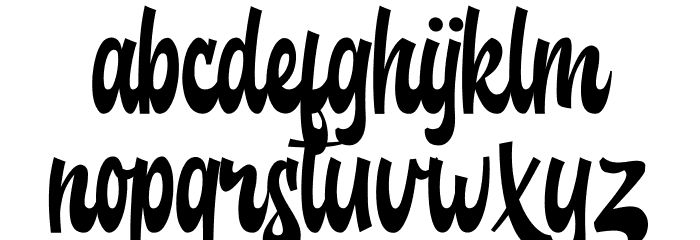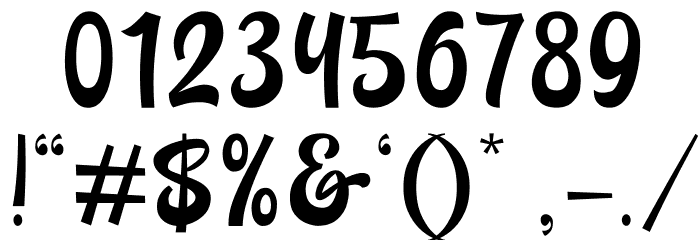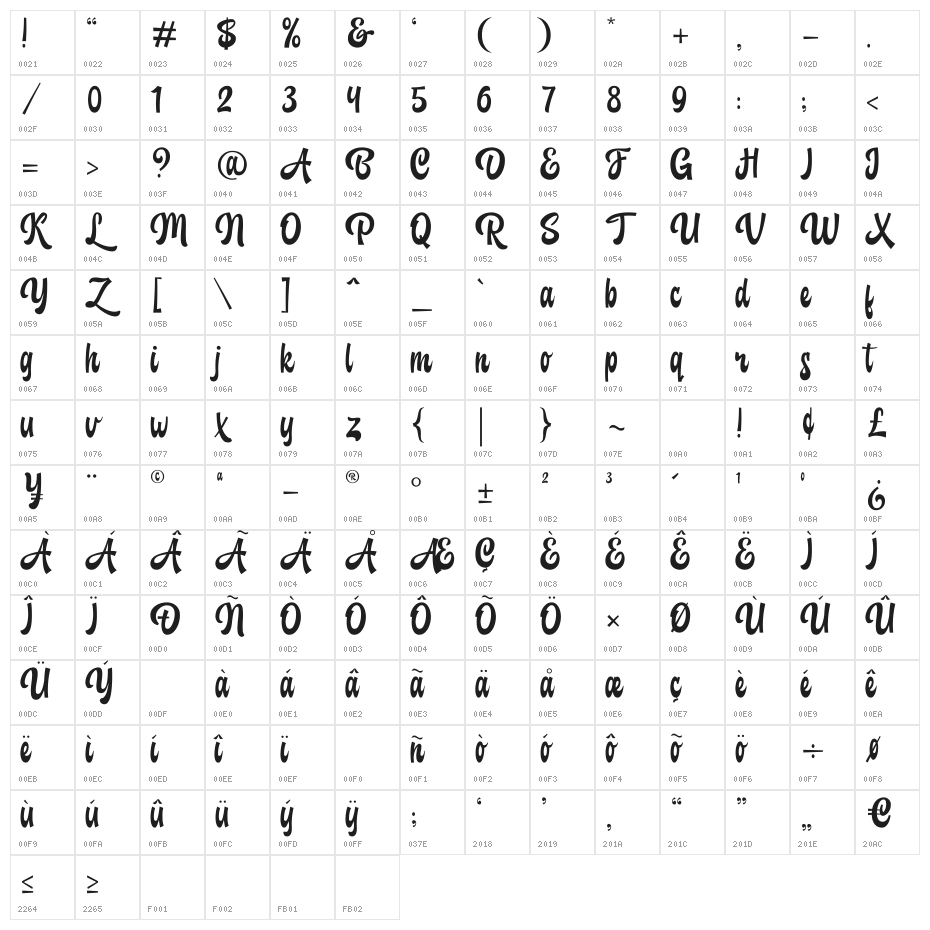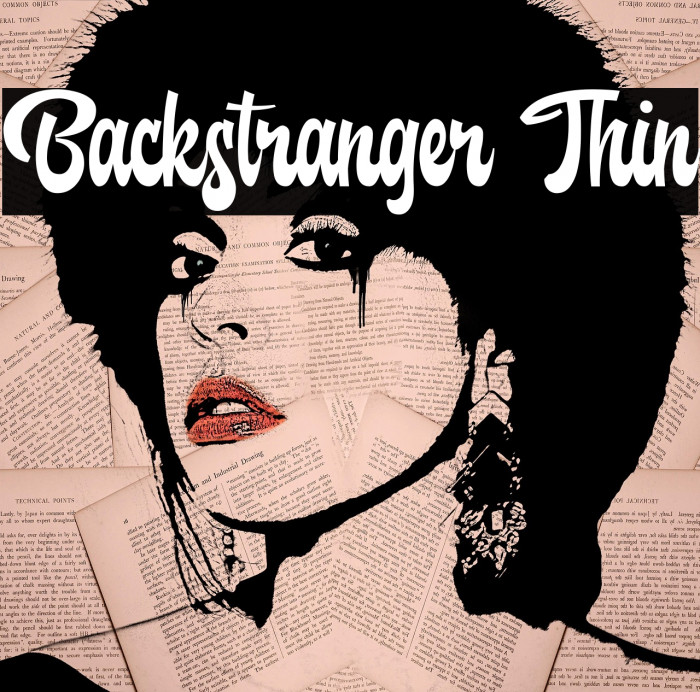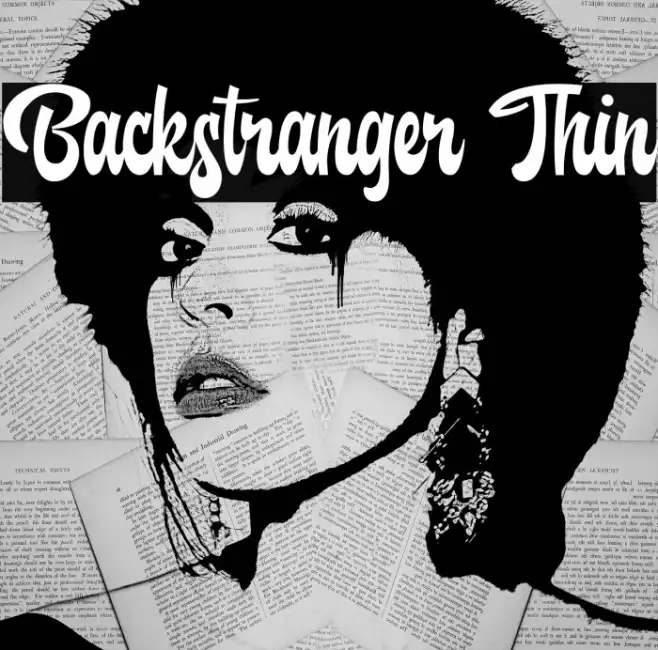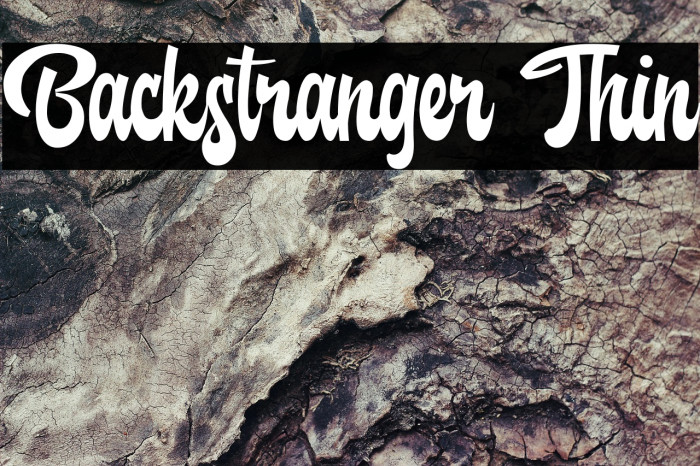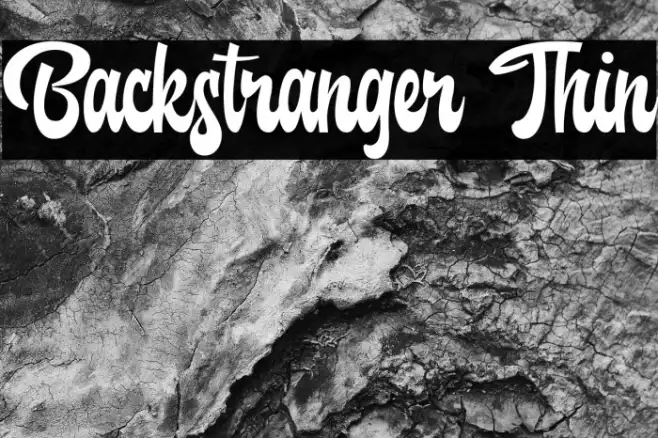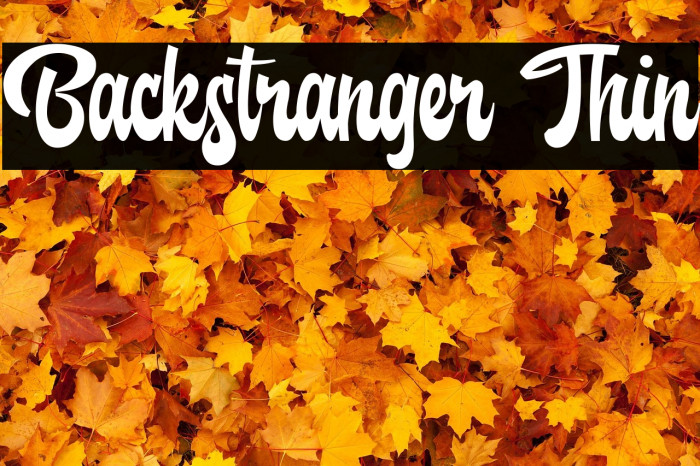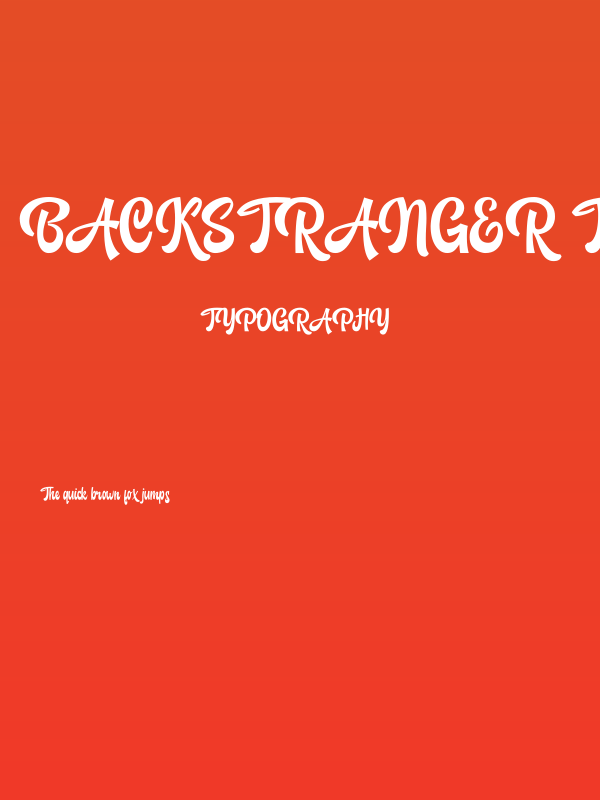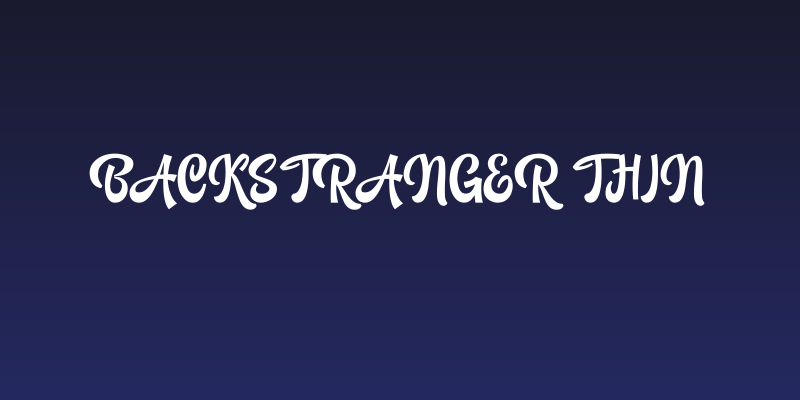
Backstranger Thin Font
This font features a bold and expressive script style with a flowing, cursive design. The uppercase letters are ornate and dynamic, with a playful yet elegant flair. The lowercase characters maintain a consistent rhythm, enhancing readability while preserving the artistic touch. Numbers and special characters are crafted with the same attention to detail, ensuring a cohesive look across all text elements. The font's strokes are thick and consistent, providing a strong visual impact that is both stylish and modern.
A bold, expressive script font with flowing, cursive design.
- Proposed Projects: Ideal for branding projects, logo design, invitations, and creative posters.
- Use Case: Logos, Headlines, Invitations